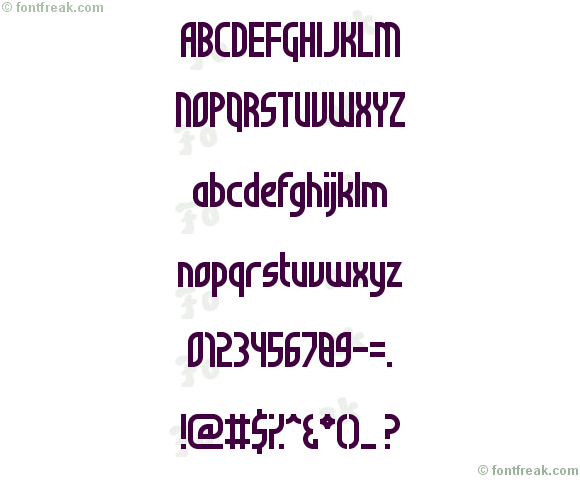
Not Sure If Weird Or Just Regular Regular
About Not Sure If Weird Or Just Regular Regular
The "Not Sure If Weird Or Just Regular Regular" font by Andrew McCluskey is a unique display typeface that embodies a blend of quirky charm and modern aesthetics. This font falls into the category of decorative typefaces, characterized by its distinctive style that prompts curiosity and engagement. The stroke weight varies across the characters, creating an intriguing playfulness, while the moderate contrast adds depth without overwhelming the viewer. The spacing is well-balanced, allowing for easy readability, which is essential for various applications.
This font is particularly well-suited for creative projects that require a touch of whimsy. It shines in use cases such as eye-catching movie posters, innovative branding for small businesses, trendy restaurant menus, or even personalized greeting cards. Graphic designers will find it an excellent choice for adding a distinctive flair to their work, while small business owners can leverage its charm to stand out in a competitive market. Content creators looking for a unique touch in their presentations or social media graphics will also appreciate its eye-catching appeal.
The target audience for this font includes graphic designers, small business owners, and content creators who are seeking to make a memorable impression. Its playful nature invites audiences to engage, making it a fantastic choice for projects that aim to elicit curiosity and intrigue.
In summary, the "Not Sure If Weird Or Just Regular Regular" font free download offers a distinctive visual experience that is both fun and functional. Its unique characteristics make it a standout choice for anyone looking to infuse their designs with personality and creativity. This font is sure to leave a lasting impression, making it a valuable addition to any designer’s toolkit.